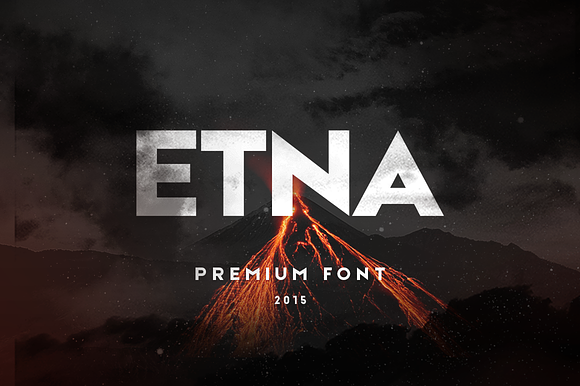
Etna Sans Serif Typeface
Etna Sans Serif Typeface is perfect for modern corporate identities, contemporary magazines, progressive tech companies, architectural firms, clean product packaging, systematic signage, professional presentations, editorial design, innovative advertising campaigns, minimalist branding, digital interfaces, and forward-thinking communications.
What makes Etna Sans Serif Typeface exciting is its volcanic strength that combines powerful geometric foundations with refined contemporary elegance through letterforms that erupt with confident energy and systematic precision. This commanding typeface embodies the perfect balance of natural force and controlled sophistication, combining bold presence with technical refinement that resonates with audiences seeking both power and professionalism in modern design applications. The font's dynamic character and geological stability create immediate impact while maintaining the clarity essential for complex information design and international business communications. Its powerful personality makes it perfect for organizations that want to communicate strength, innovation, and the transformative energy of progressive thinking and systematic excellence.
The Etna Sans Serif Typeface family includes thin, light, regular, medium, semibold, bold, and black weights, each available with corresponding italic styles. The comprehensive family features contemporary alternates, systematic ligatures, and powerful design elements that enhance the font's dynamic character and provide designers with complete typography solutions for robust brand systems and complex hierarchical communications.
Whether you're developing powerful brand identities, creating dynamic marketing materials, or designing systematic communications, Etna Sans Serif Typeface Free Download delivers the volcanic authority your contemporary projects require. This premium typeface excels in environments where strength and systematic thinking are fundamental to organizational success and brand differentiation in competitive global markets. The font's powerful qualities work magnificently across digital platforms and print applications, making it an indispensable asset for designers serving progressive and technology-focused industries worldwide. Modern companies and innovative organizations choose this font for its ability to communicate dynamic energy while maintaining perfect readability and professional credibility across diverse cultural contexts. The comprehensive character set supports multiple languages and includes specialized contemporary symbols, expanding its versatility for international modern applications and multilingual progressive communications. Professional designers appreciate its systematic approach to powerful design and consistent performance across all weights and global applications. When you implement this exceptional typeface in your contemporary communications, you're selecting a typography solution that celebrates dynamic strength and systematic innovation, ensuring your brand communicates authority, energy, and progressive vision while maintaining the contemporary credibility essential for success in competitive modern markets and innovative industries that value both functional excellence and powerful visual presence in their organizational communications and international brand positioning strategies that demand both geological stability and volcanic impact.